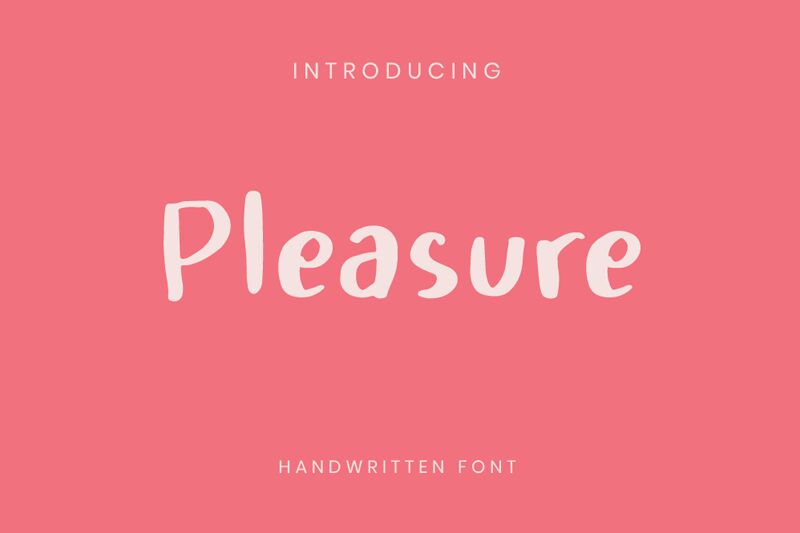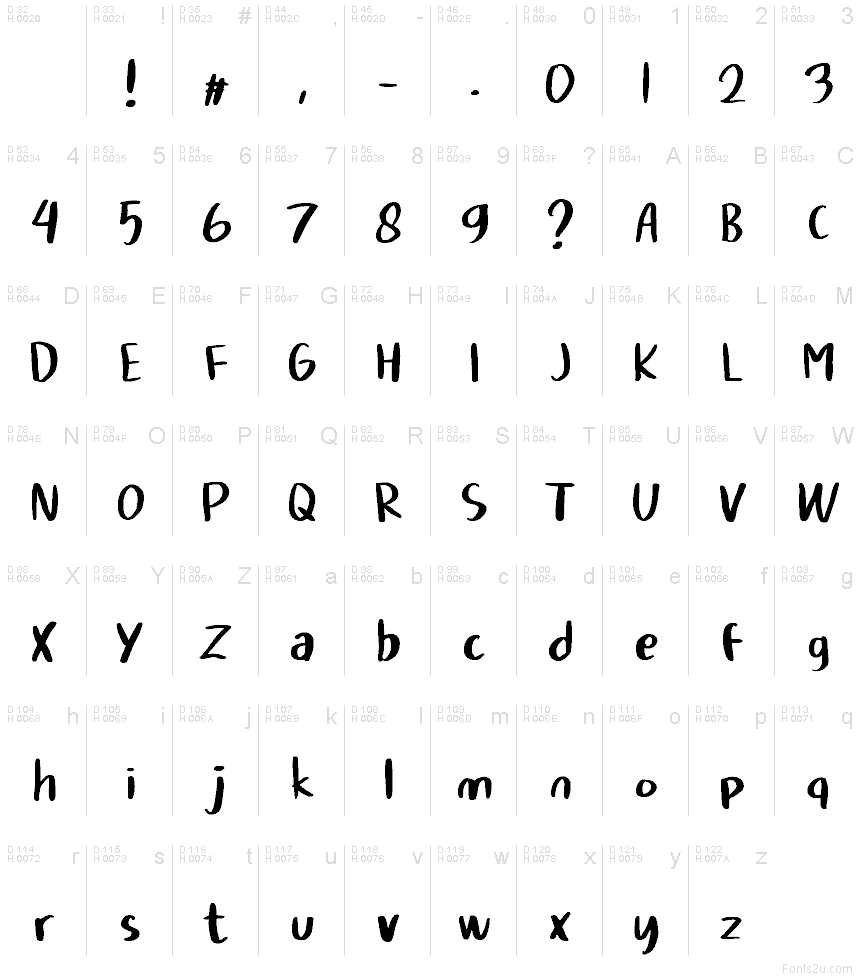
Pleasure Handwritten font by Agung Rohmat is a free handwritten typeface that feels like a quick note from a friend. Its rounded strokes, loose rhythm, and slightly bouncy line give it a warm, informal energy, as if written with a soft felt-tip pen on smooth paper. Letters sit close without feeling cramped, creating a cozy, approachable texture in a line of text.
Using Pleasure Handwritten, you can bring personality to greeting cards, quote graphics, children’s book covers, cozy café menus, DIY product labels, planners, and crafty brand identities. This free font shines when used large enough to show its inky curves; pair it with a clean geometric sans for body text to keep layouts friendly but readable.